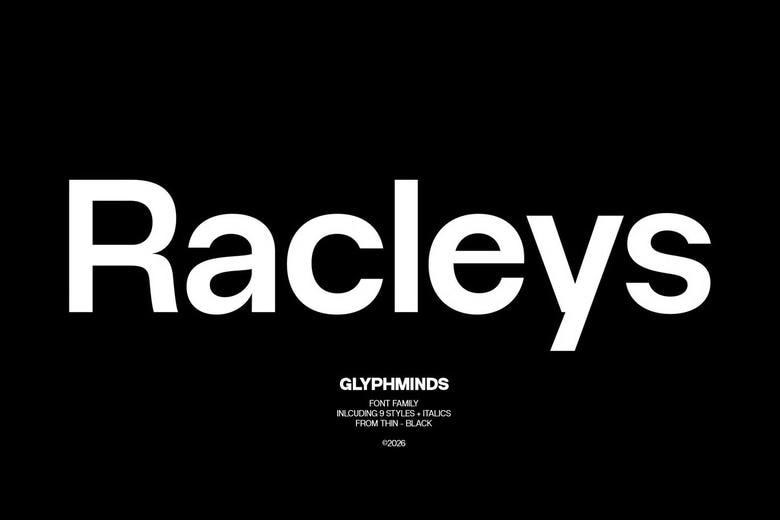
Racleys Font is a modern sans-serif typeface family with a clean, bold, and professional look. It comes in 18 styles, ranging from thin to black, and includes elegant italics. This range gives you plenty of options for creative or commercial work.
With its geometric shapes, soft curves, and minimalist style, Racleys works well for logos, branding, posters, editorial layouts, social media, packaging, websites, ads, and modern business identities.
Racleys makes a strong impression and stays easy to read, whether you need a luxury brand look, futuristic visuals, modern corporate designs, or eye-catching headlines.
Racleys Sans Serif Font Family